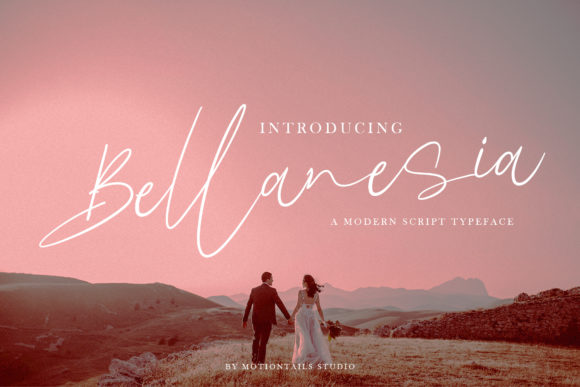
Step into the world of sophistication and grace, where letters dance with elegance and charm – we introduce Bellanesia Font, the ultimate indulgence for those seeking beauty and distinction. Crafted by the visionary designers at Motiontailstudio, Bellanesia is a script font that transcends the ordinary, captivating hearts with its delicate strokes and enchanting flow.
This exquisite font is not just a collection of characters; it's an artistic masterpiece that breathes life into your creative endeavors. Its graceful lines and perfectly balanced curves create an experience that delights the eyes and sparks imagination. Whether you're a seasoned designer or just starting your creative journey, Bellanesia will elevate your projects to new heights of visual splendor.
With Bellanesia, you'll discover a font that's as versatile as it is breathtaking. Its refined style effortlessly blends with a diverse range of design concepts, from elegant invitations and heartfelt letters to eye-catching logos and captivating social media posts. Unleash your creativity and let Bellanesia guide you towards design excellence.
Beyond its aesthetic allure, Bellanesia is engineered for seamless functionality. Its carefully crafted characters ensure exceptional readability, making it the ideal choice for web browsing. Its crisp and clear lines render beautifully on screens of all sizes, creating an immersive and enjoyable reading experience. Lose yourself in the world of digital content without compromising on visual appeal.
When you choose Bellanesia, you're not just downloading a font; you're embracing a transformative experience. Its enchanting beauty and impeccable functionality will inspire you to create designs that capture attention, stir emotions, and leave a lasting impression. Take your creative vision to new heights and let Bellanesia be your guiding light.
Embrace the elegance, indulge in the charm, and elevate your designs with Bellanesia Font. Its beauty and functionality will ignite your creativity and captivate audiences. Step into the world of Bellanesia and let your artistic dreams take flight.